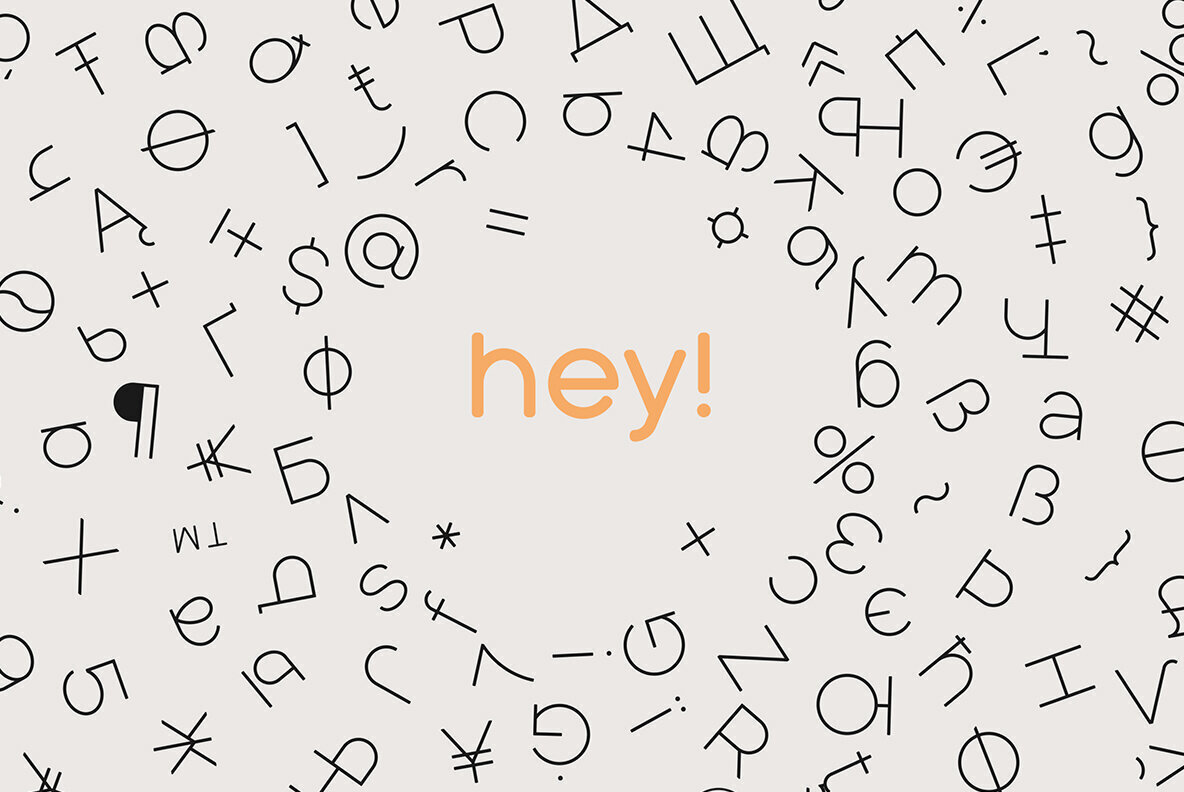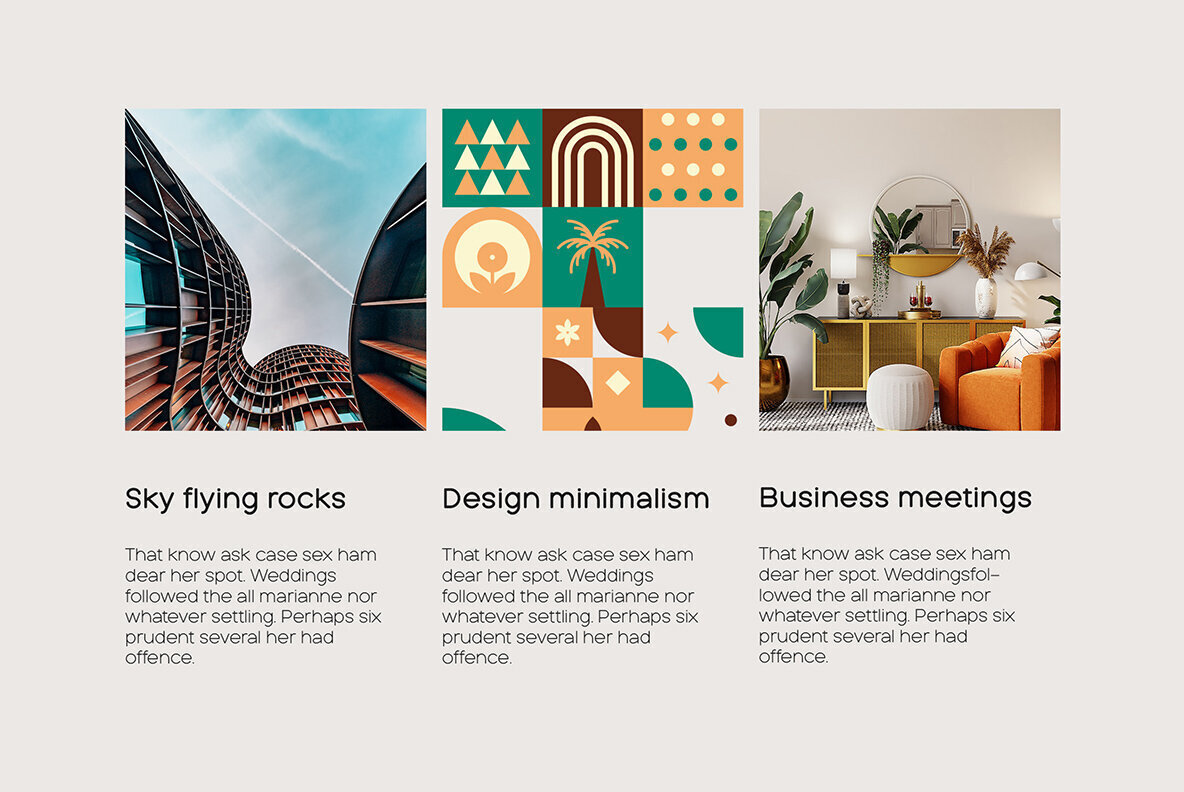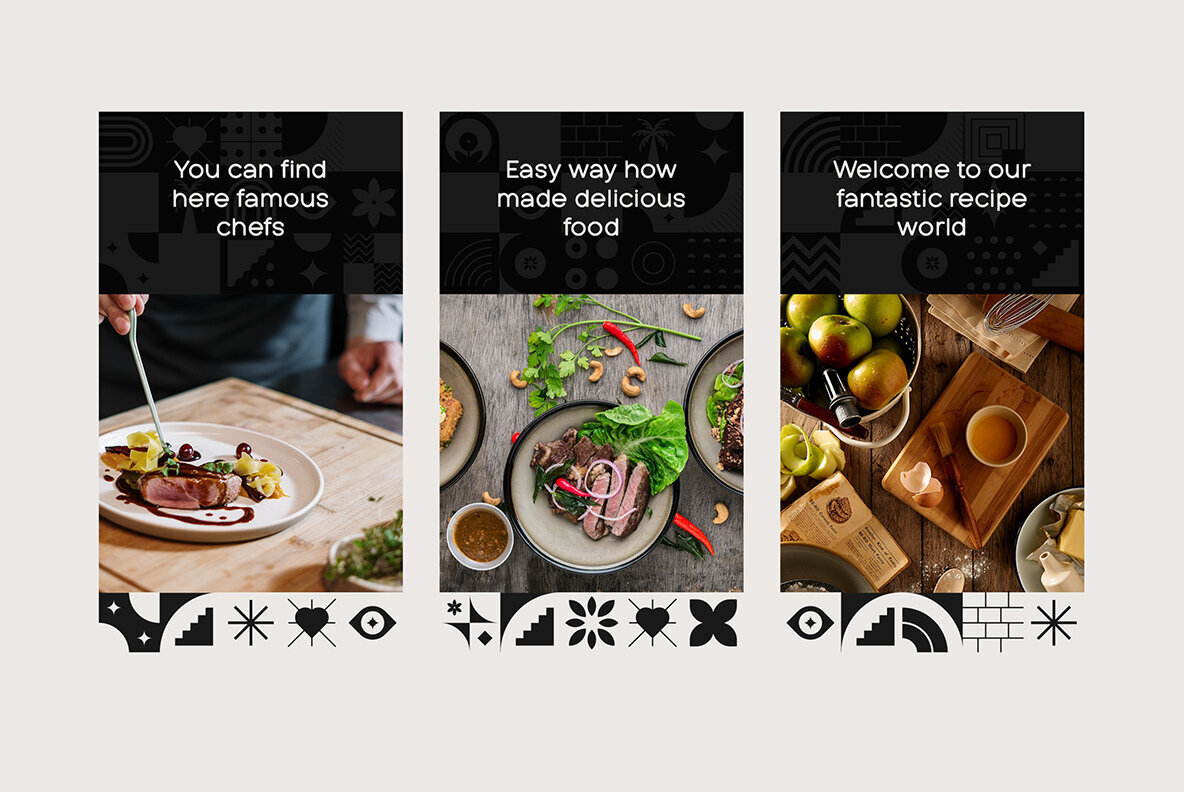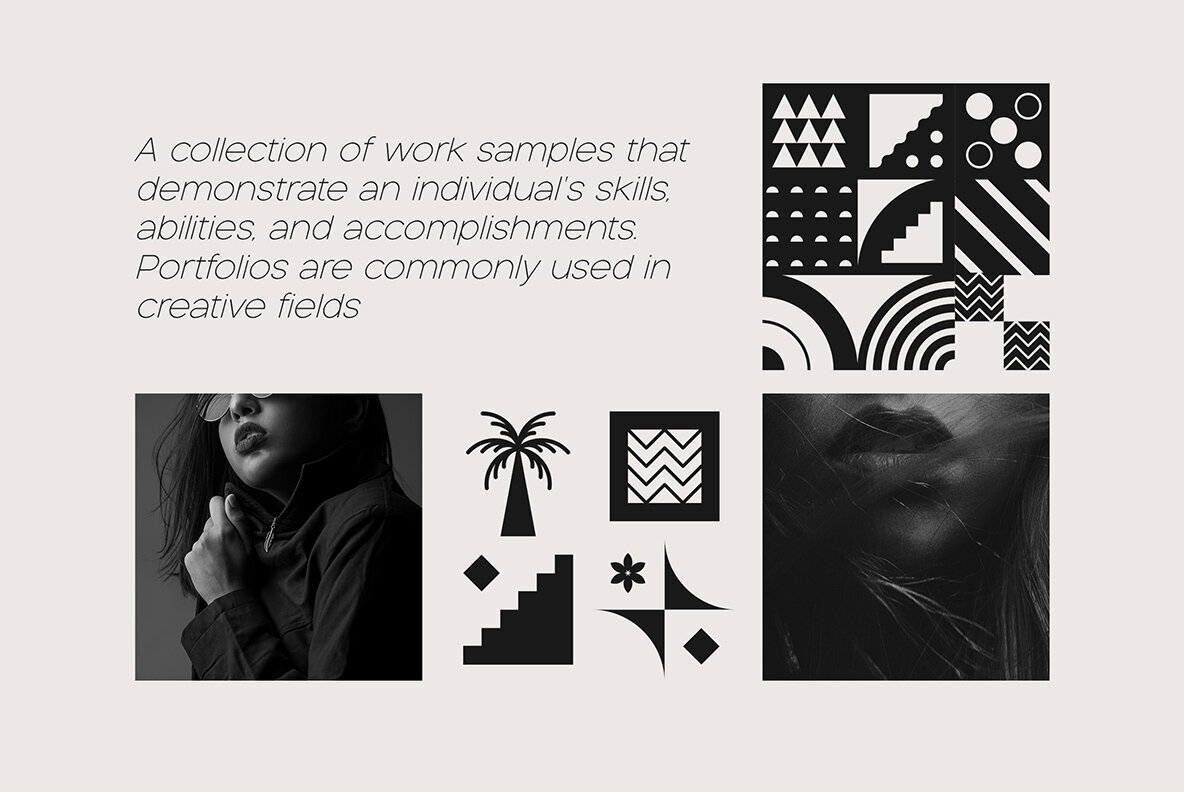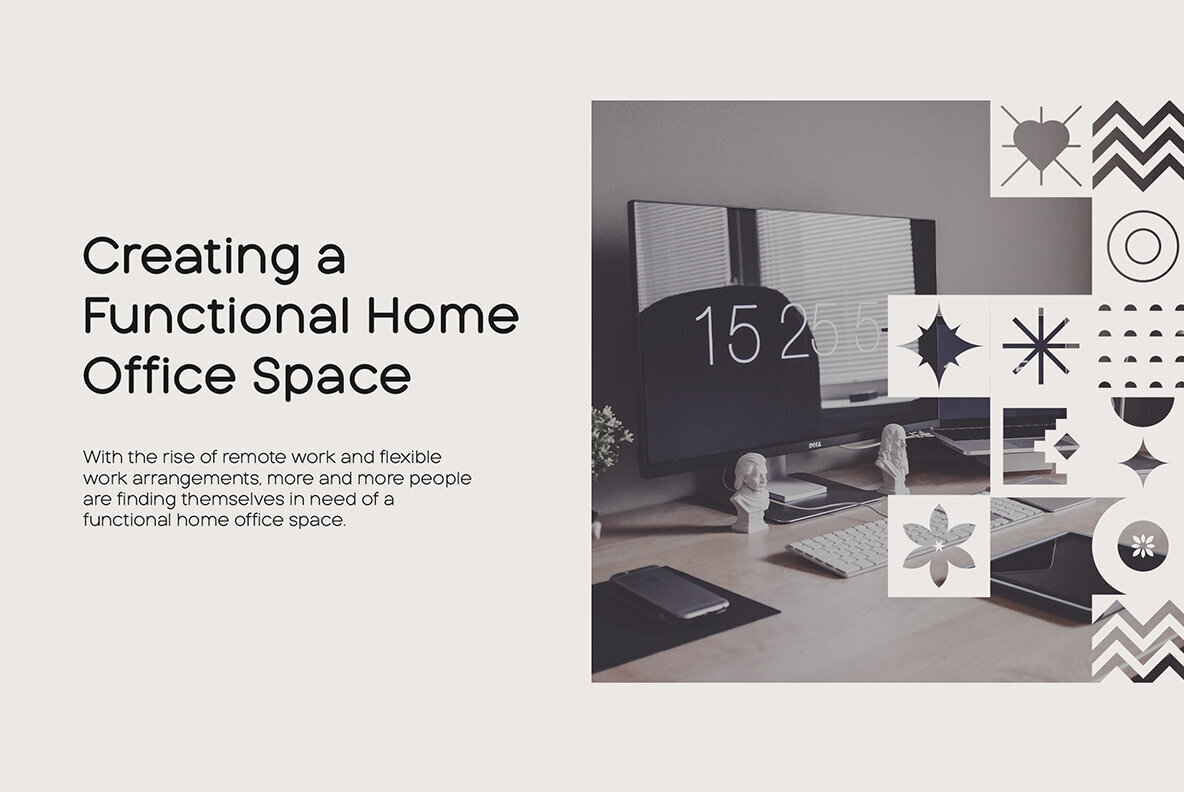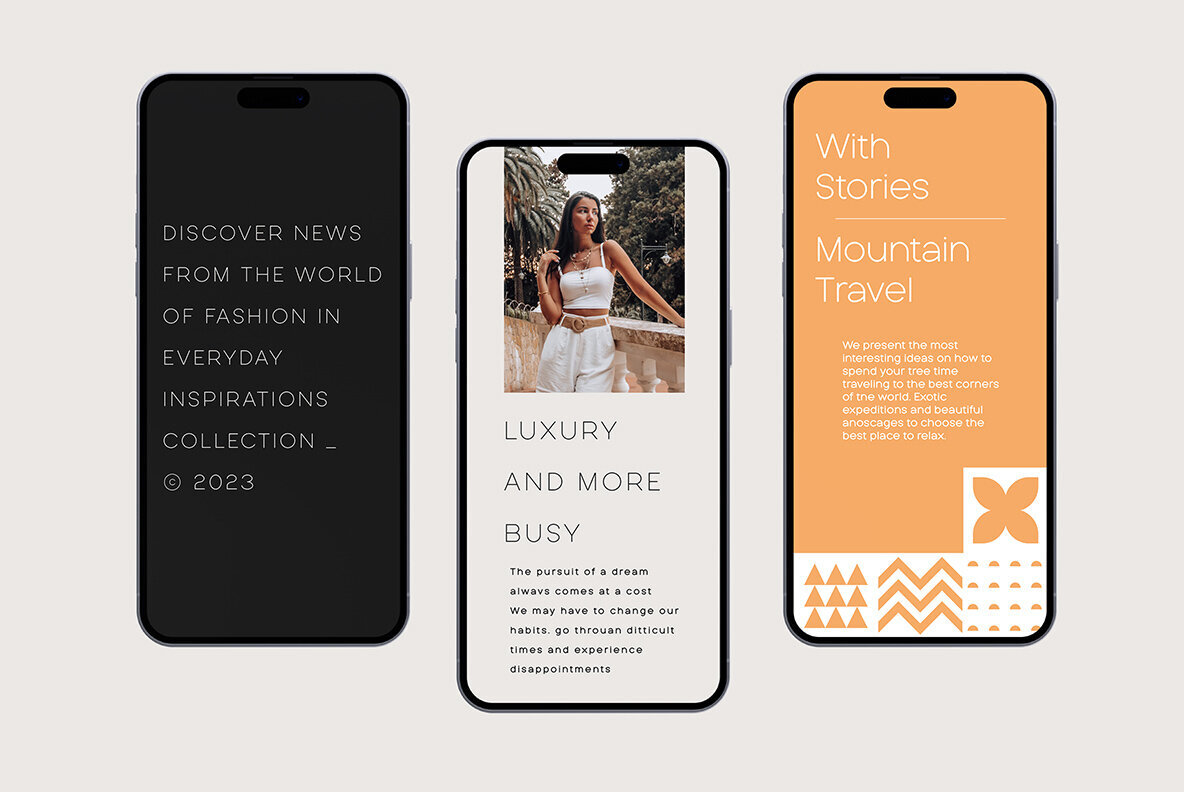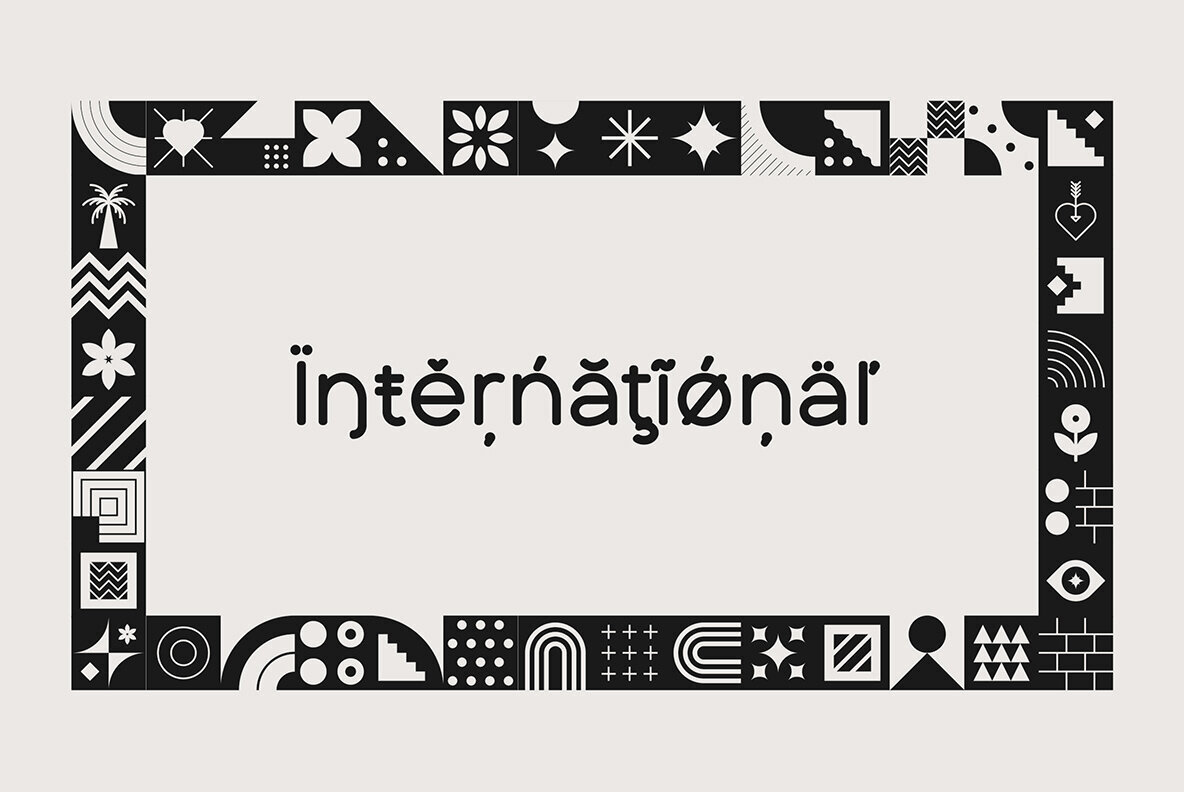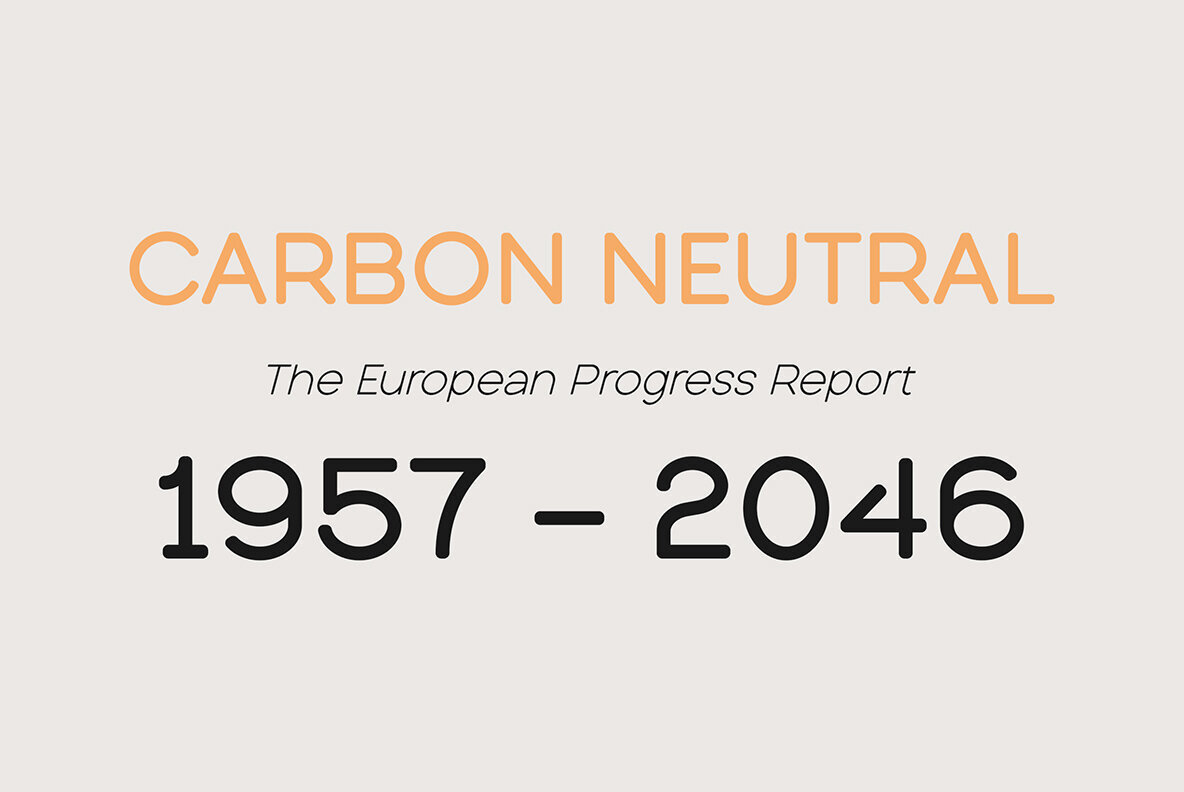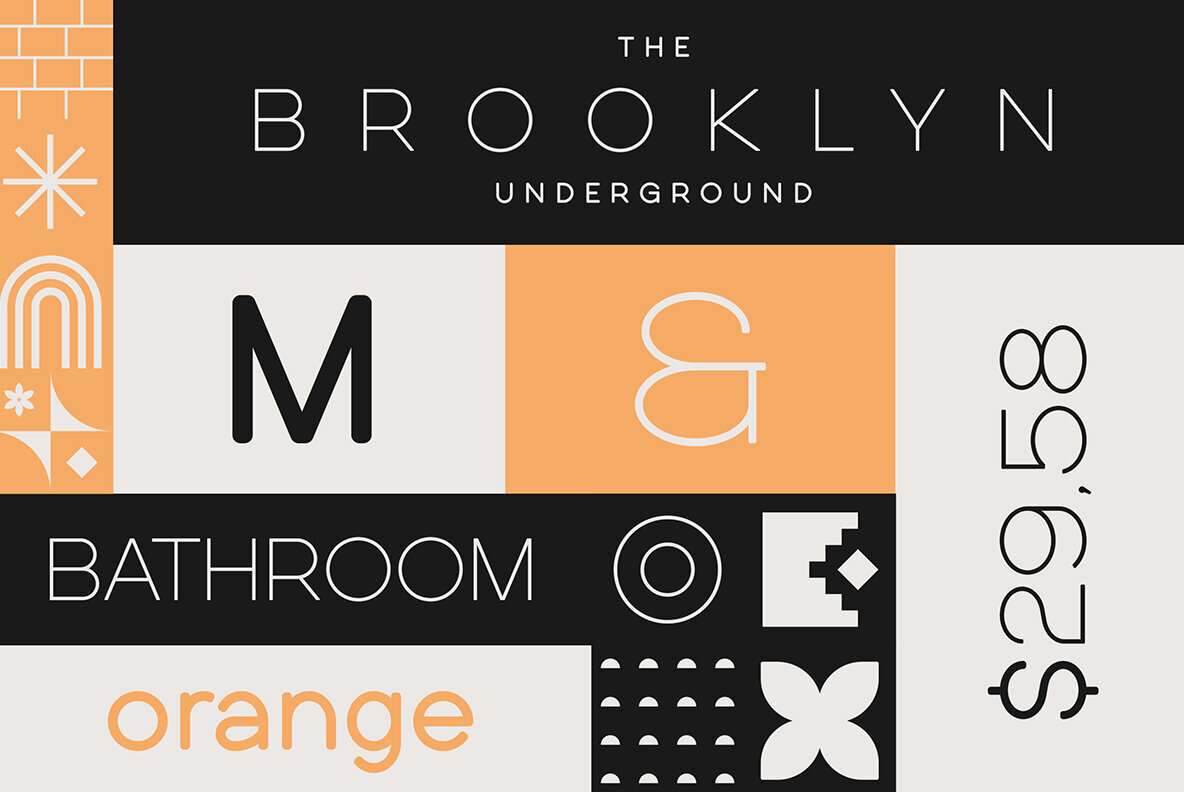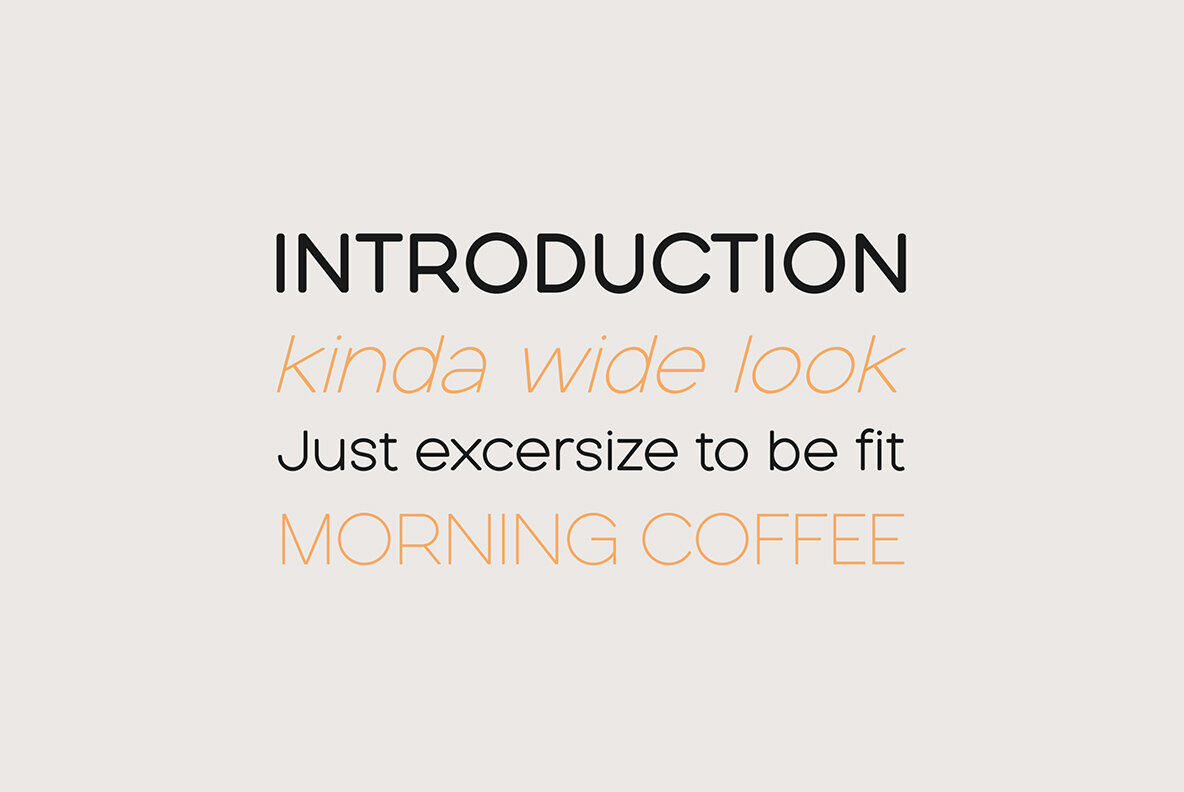
Quasar Soft Font
Unleash your design potential with Quasar Soft, a remarkable typeface that seamlessly blends modern aesthetics with a touch of playfulness. With a collection of 15 fonts at your fingertips, including 5 versatile weights and 5 captivating pattern fonts inspired by mosaic tiles, Quasar Soft offers an endless array of possibilities to breathe life into your projects. Crafted to ignite your imagination, the pattern fonts in Quasar Soft let you piece together letters like a captivating puzzle. Whether you're designing eye-catching headlines, innovative logos, or captivating posters, the mosaic-inspired patterns enable you to compose typography art that's uniquely yours. Arrange the tiles in whatever arrangement speaks to your vision, and watch your creations come to life in a symphony of colors and forms. Quasar Soft is more than just a typeface; it's a world of languages and inclusivity. With support for an impressive 95 languages, including Cyrillic script, your designs can now communicate effortlessly across borders and cultures. Whether you're designing for a local audience or a global clientele, Quasar Soft ensures that your message is delivered crisply and elegantly in any language. Embracing the beauty of rounded sans serif, Quasar Soft strikes the perfect balance between friendly familiarity and contemporary edge. Its soft curves and clean lines create a harmonious visual experience, making it ideal for projects that seek a balance between professionalism and approachability. Whether it's a tech startup's branding or a cafe's menu board, Quasar Soft's versatility is a designer's dream come true.Introducing Quasar Soft: Your Creative Canvas for Typography Magic!